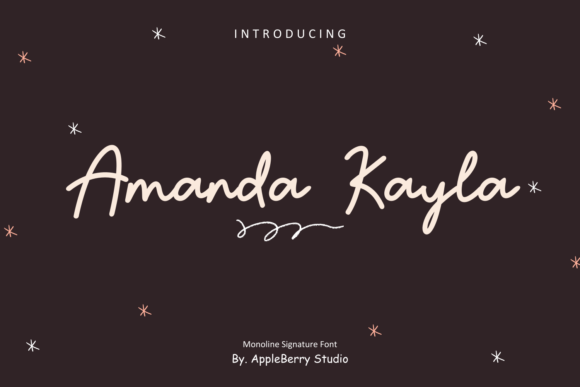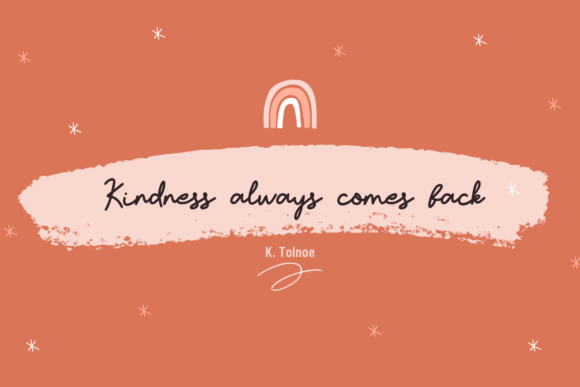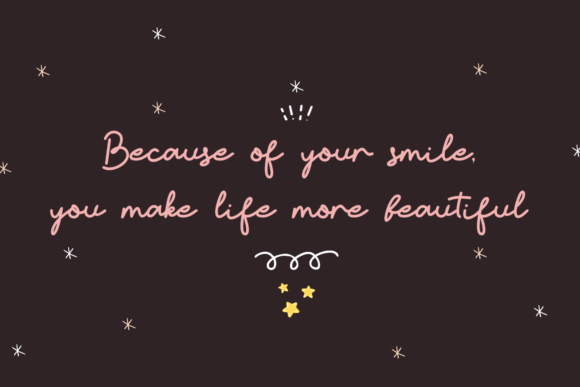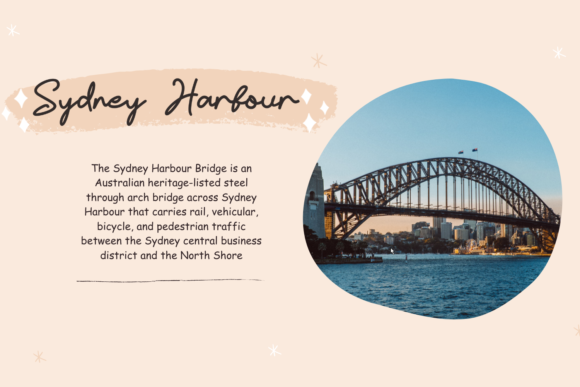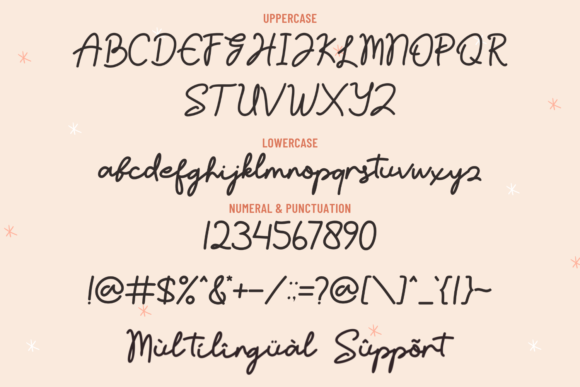
About Amanda Kayla Font
Amanda Kayla is a delicate script font. Its flexibility and neat style will brighten up each of your designs. Have fun with this cool font and explore its endless variations.